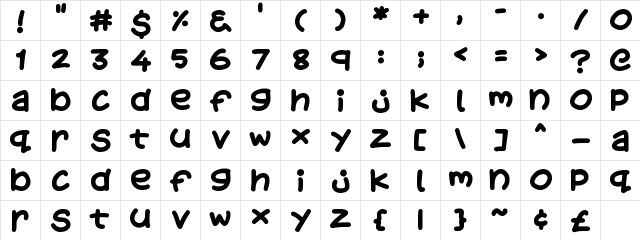
Kids Stuff Regular
Design Context for Kids Stuff Typeface
Kids Stuff has an approachable, lighthearted character — its loose, expressive forms are well-suited to children's content, casual branding, and fun-first design.
Font Pairing: Pairs well with a rounded or humanist sans for body copy, maintaining the friendly tone without relying on Kids Stuff to carry extended reading.
Pro Tip: Avoid using Kids Stuff for long passages of text — it works best for headlines, labels, and short calls to action.